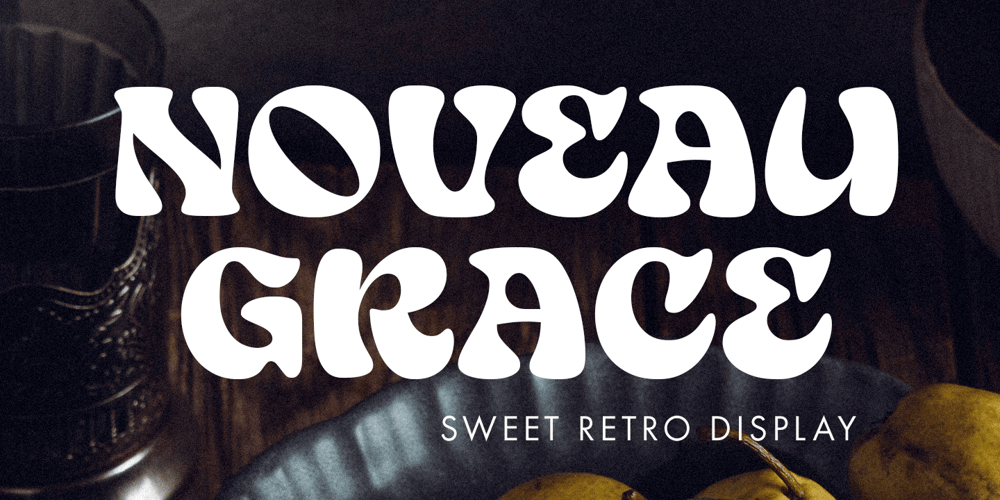
Noveau Grace Font Family was designed by Ahmad Ramzi Fahruddin and published by Arterfak Project. Noveau Grace contains 1 styles and family package options. Say hello to the Nueva Garcia font! A bold and playful typeface, this font combines retro groovy and psychedelic styles. Its slightly ‘quirky’ shape adds a unique charm, making it perfect for use in displays or titles. You can use it for packaging, logos, menus, banners, stickers, posters, short quotes, and more.It’s ideal for themes that require a fun, joyful, delicious and sweet impression. Nueva Garcia also comes with stylistic alternatives that enrich your creativity when creating amazing designs!